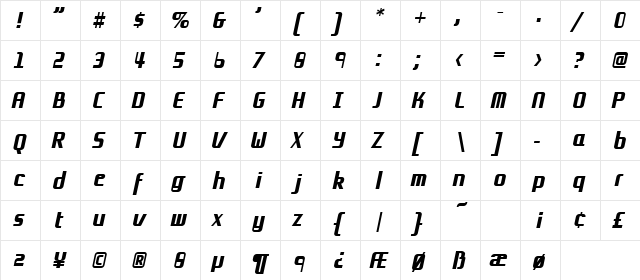
Grov AB Bold Italic
Design Context for Grov AB Typeface
Grov AB is a composed and adaptable typeface that performs quietly and consistently across a wide range of design contexts. The slanted form adds forward momentum and visual energy. Its bold stroke weight gives it real presence on the page.